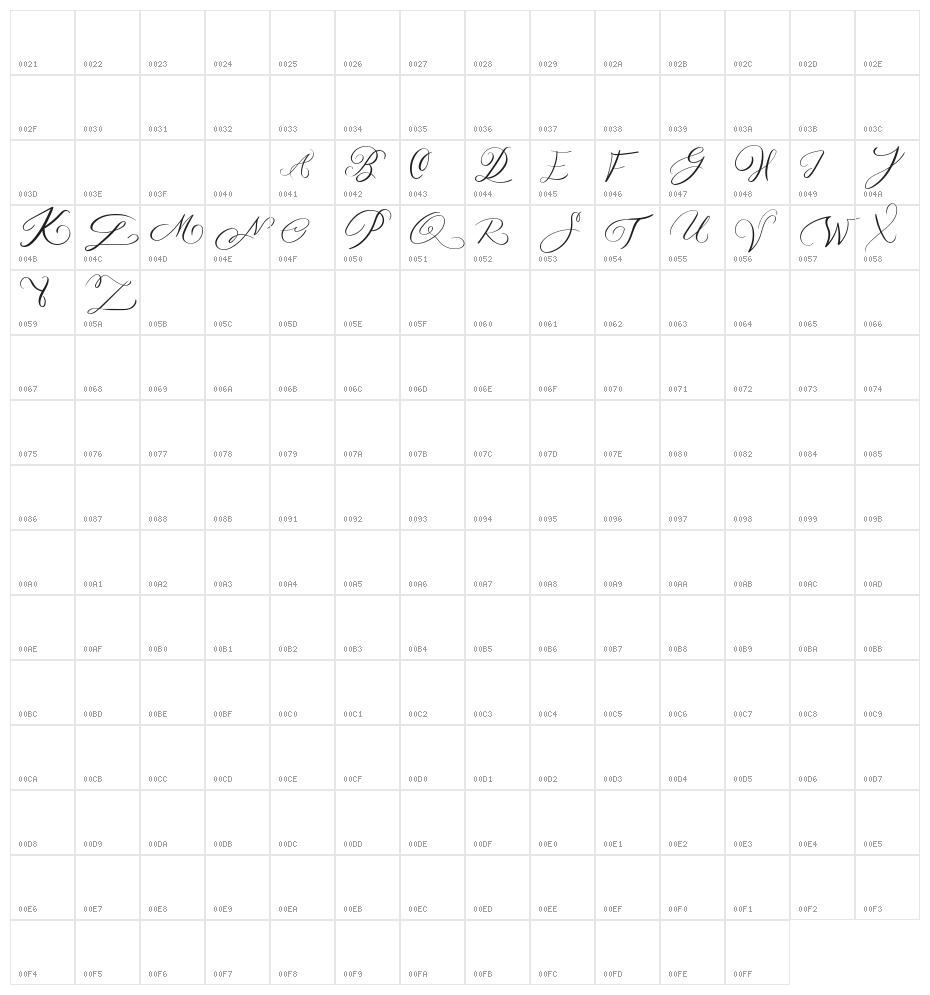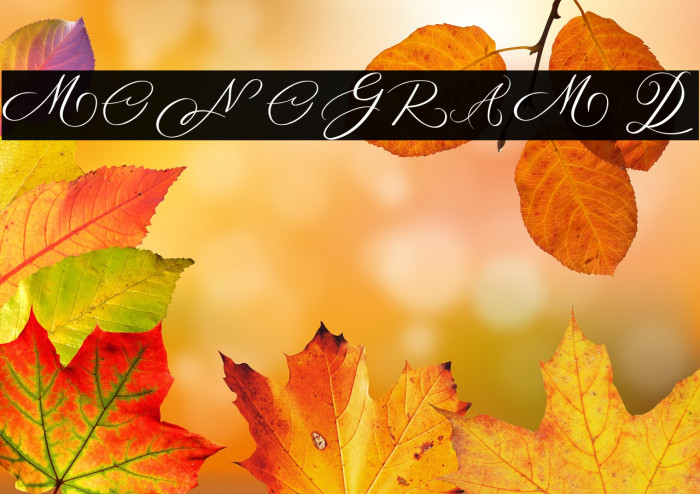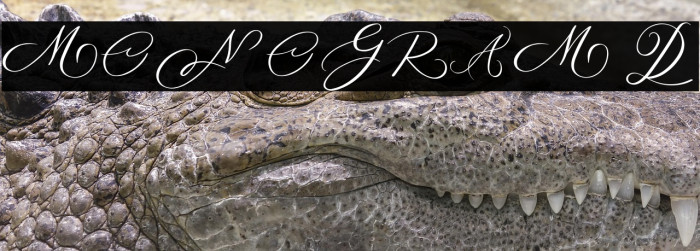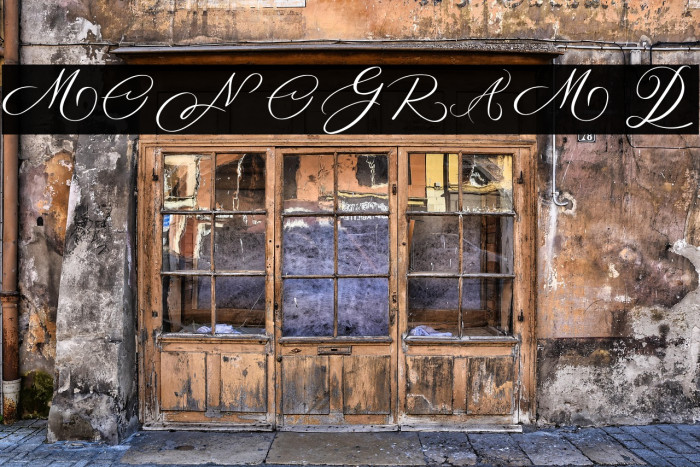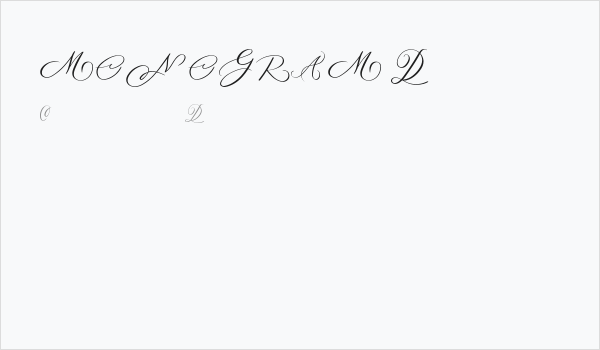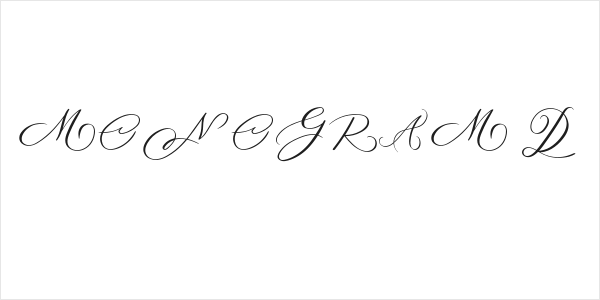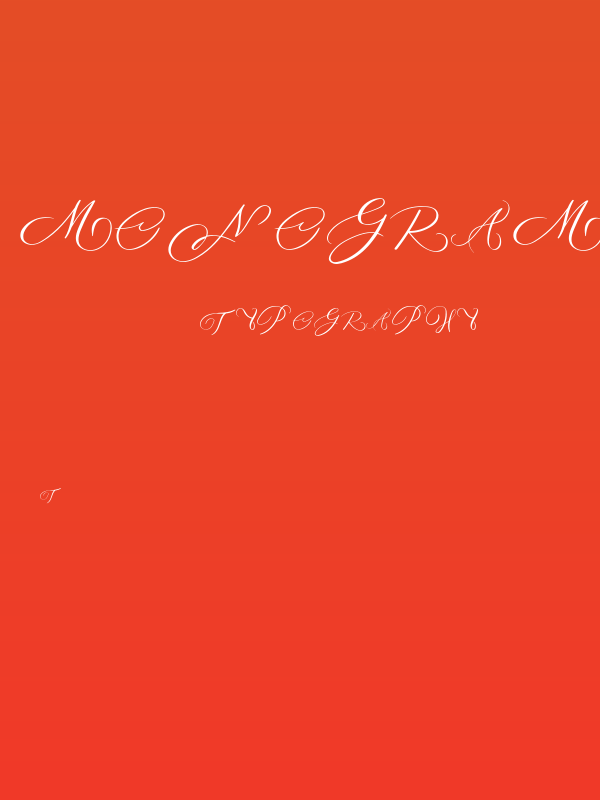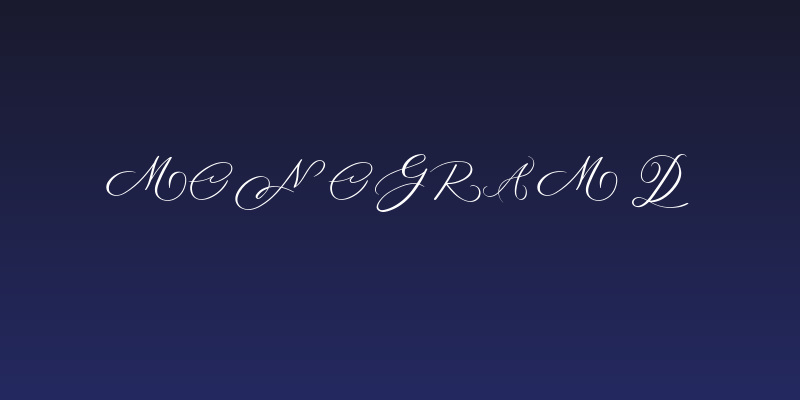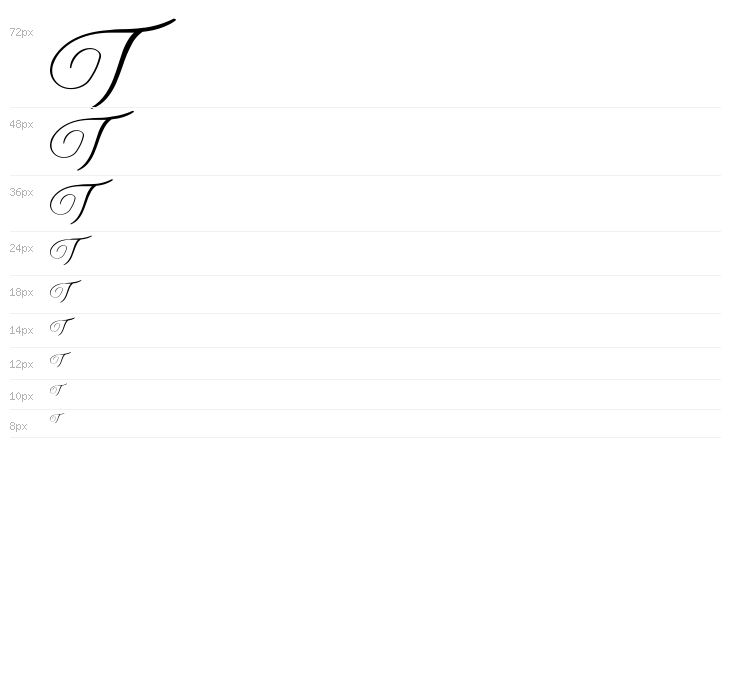
MONOGRAM D Font
MONOGRAM D Description
This font is an elegant and sophisticated script style, characterized by its flowing, cursive letters that exude a sense of grace and refinement. Each letter is intricately designed with delicate loops and swirls, creating a harmonious balance between formality and artistic flair. The uppercase letters are particularly ornate, with extended flourishes that add a touch of grandeur. The lowercase letters maintain a consistent style, complementing the uppercase with their own subtle curves and connections. This font is perfect for creating a luxurious and timeless aesthetic, suitable for high-end branding or formal invitations. Its intricate design requires careful consideration in its application to ensure readability while maintaining its decorative appeal.
Use CaseLogos, Invitations, Decorative Text
Proposed ProjectsIdeal for wedding invitations, luxury branding, elegant stationery, and decorative monograms.